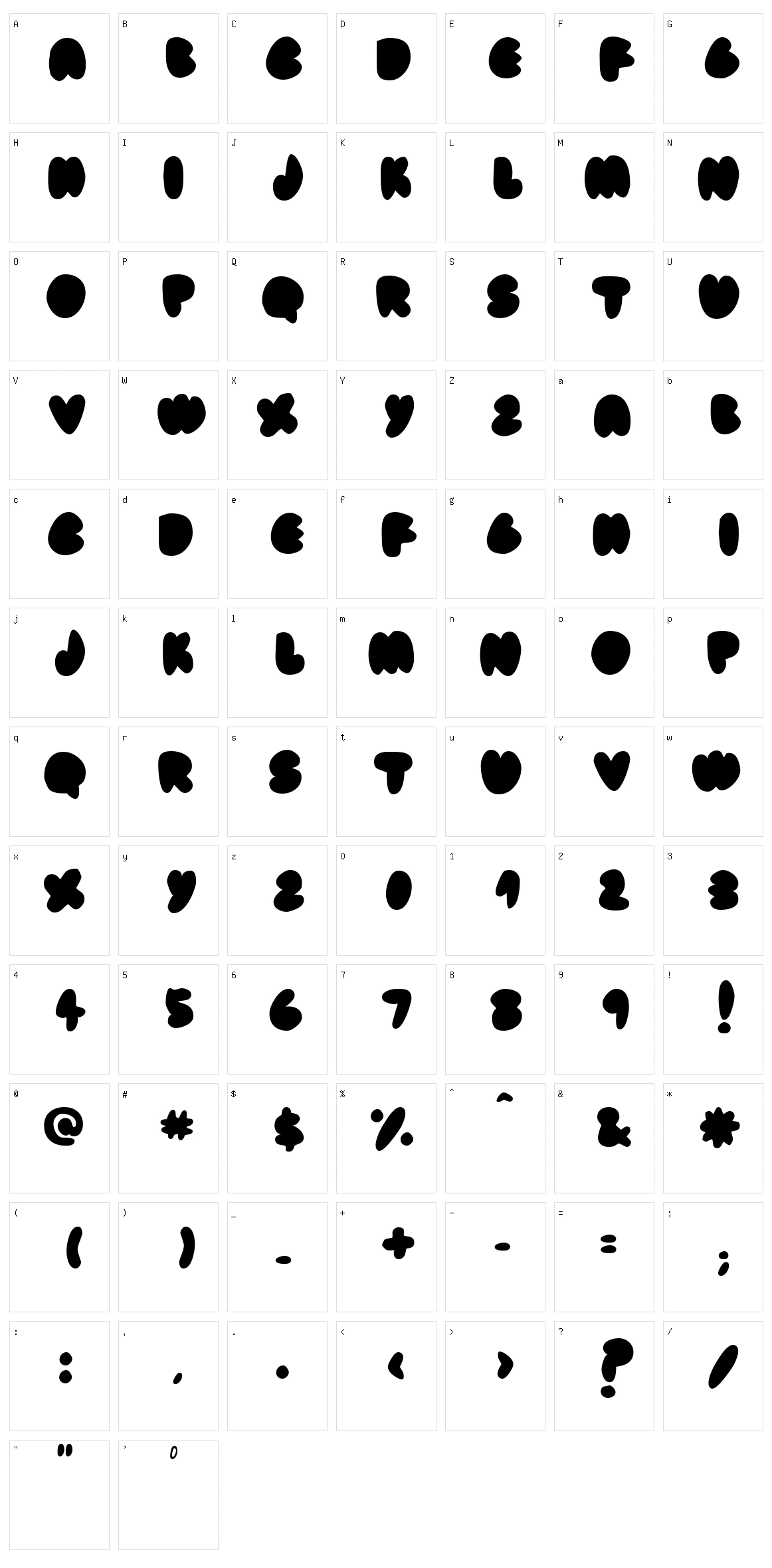
The free font Fat Ass is carefully designed by Putis Mayer, showcasing a thoughtful balance of creativity and usability and falls under the Cartoon font style. When you download the ZIP file, it contains only 28.57 KB of font files, making it lightweight and quick to download. Please review the license details below to understand permitted usage and distribution rights. If license information is not available, we recommend using this font for personal projects only or contacting the author directly for commercial usage permissions.